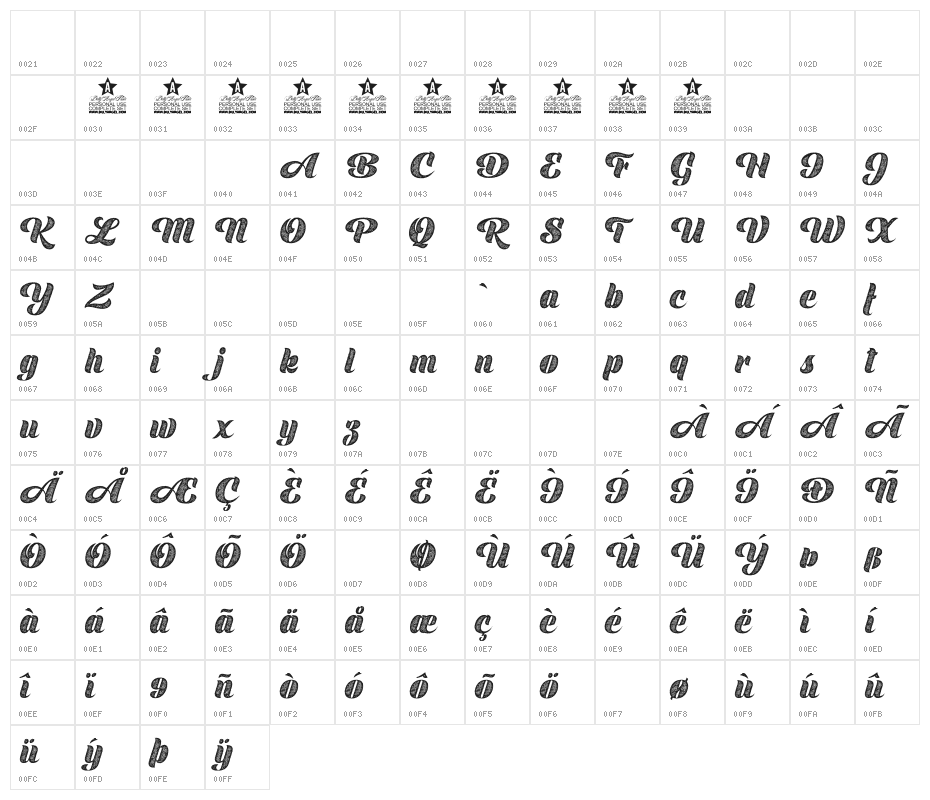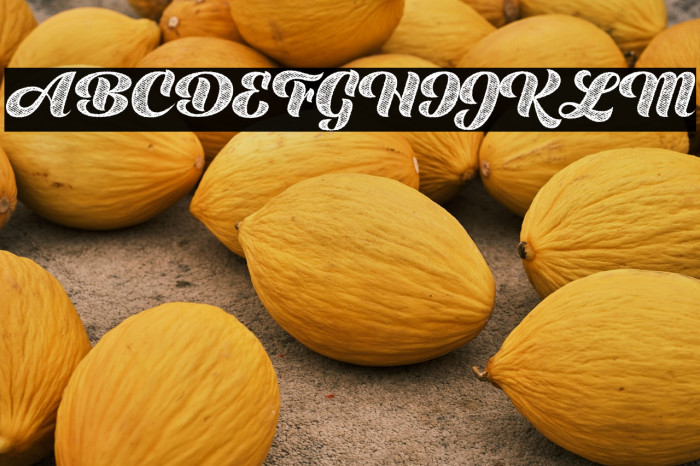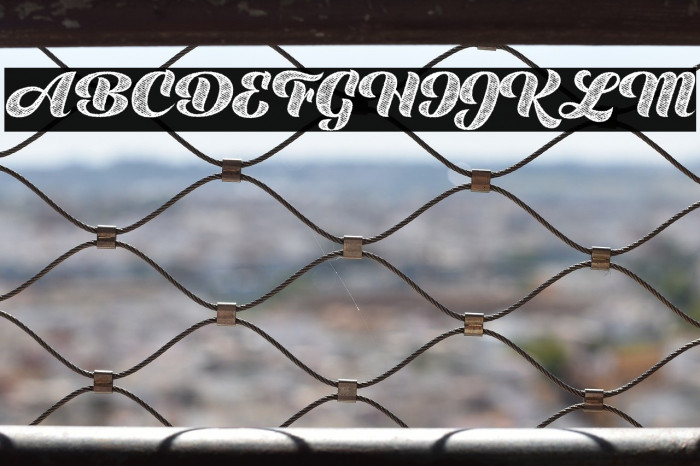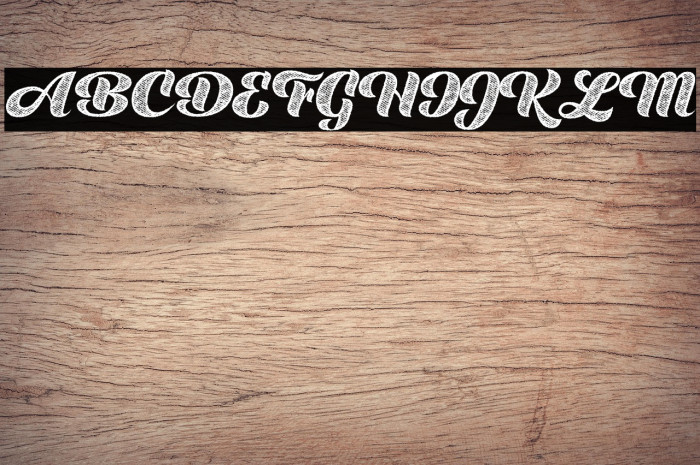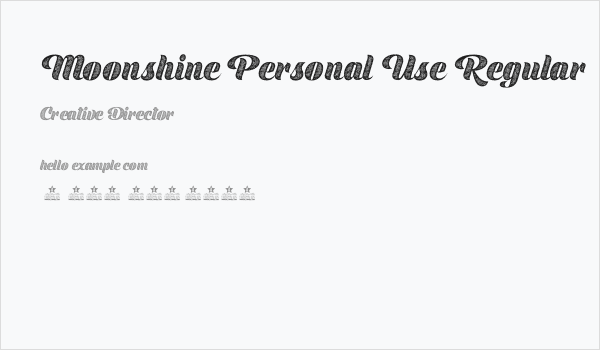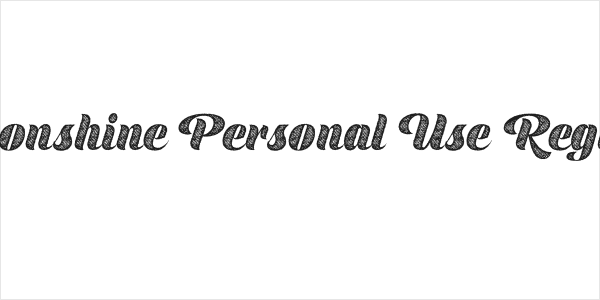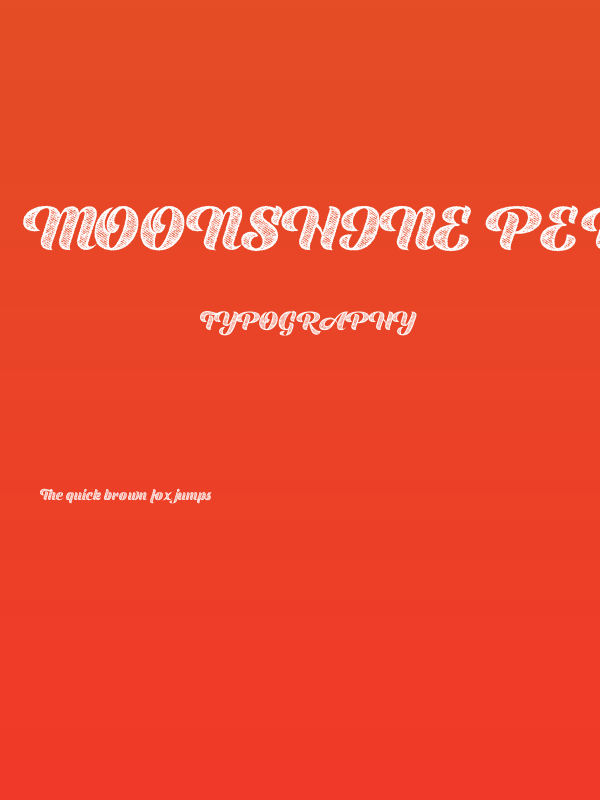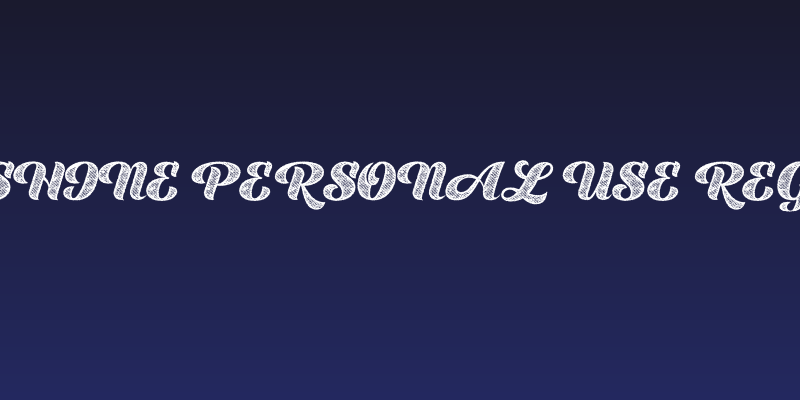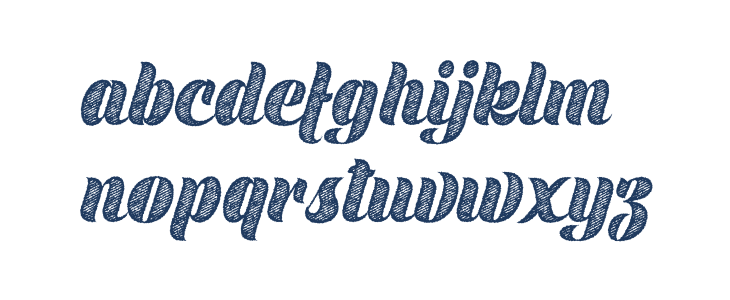
Moonshine Personal Use Regular Font
Moonshine Personal Use Regular Description
This font features a bold, script style with a textured, hand-drawn appearance. The letters are interconnected, creating a flowing and dynamic look. The strokes are thick and consistent, giving the font a strong presence. The texture within each character adds a unique, vintage feel, reminiscent of chalk or charcoal drawings. The uppercase letters are slightly more ornate, with flourishes that enhance their decorative appeal. The lowercase letters maintain the same textured style, ensuring consistency throughout. This font is ideal for projects that require a personal, handcrafted touch.